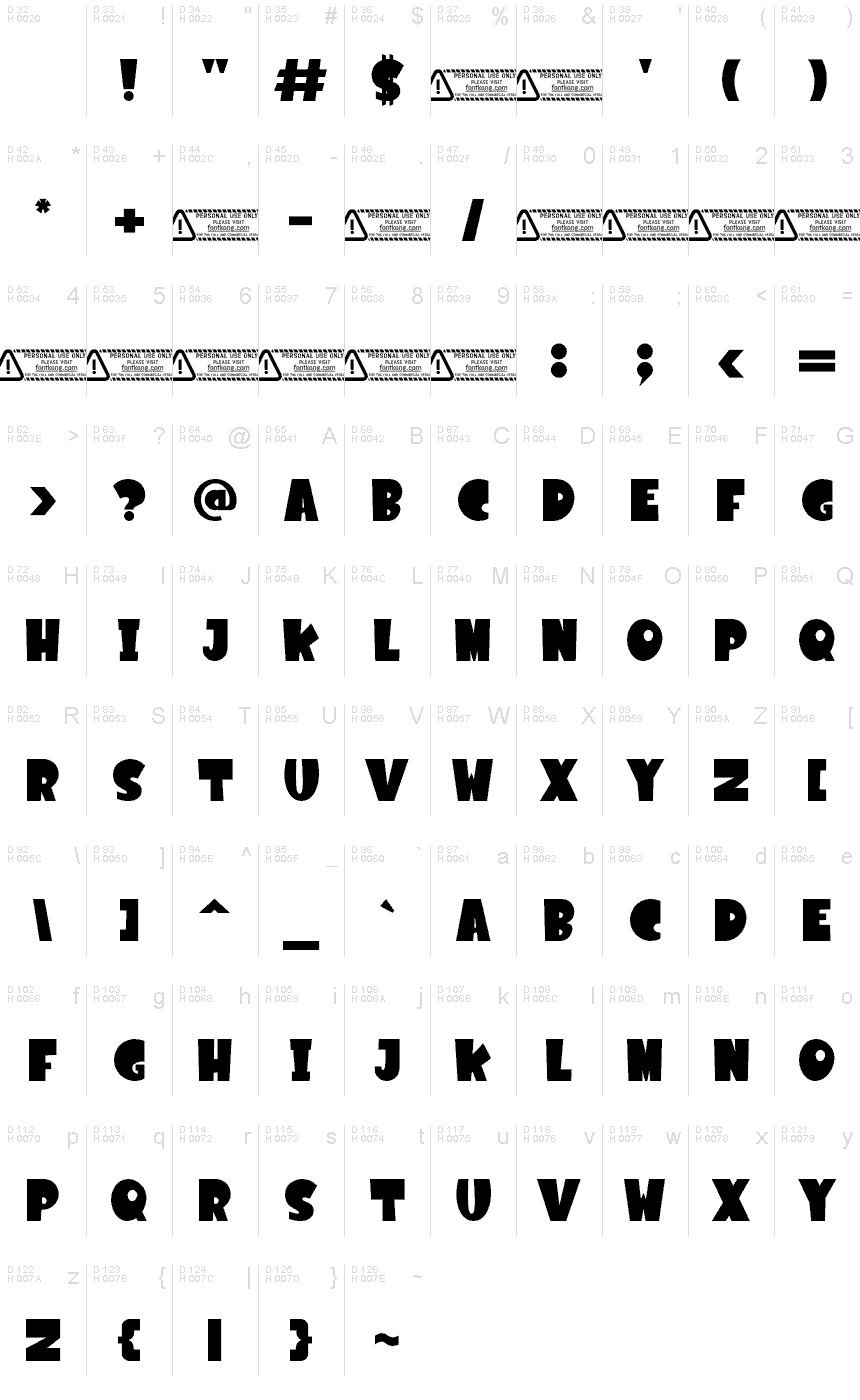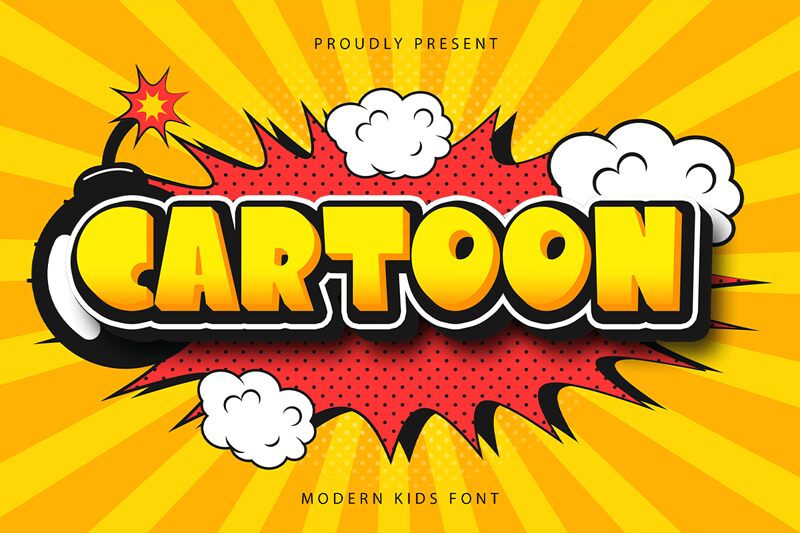
Cartoon font by Kong Font is a display font that captures the lively and retro essence of comic-inspired text. This playful typeface features bold presence, rounded forms, and exaggerated proportions. The free cartoon style font injects a playful character into each word.
From games to packaging; this typeface has an apparent applicability to branding, logos, and headlines. Use it with book covers, stations and posters on one end or advertisements and websites on the other end of possible uses.